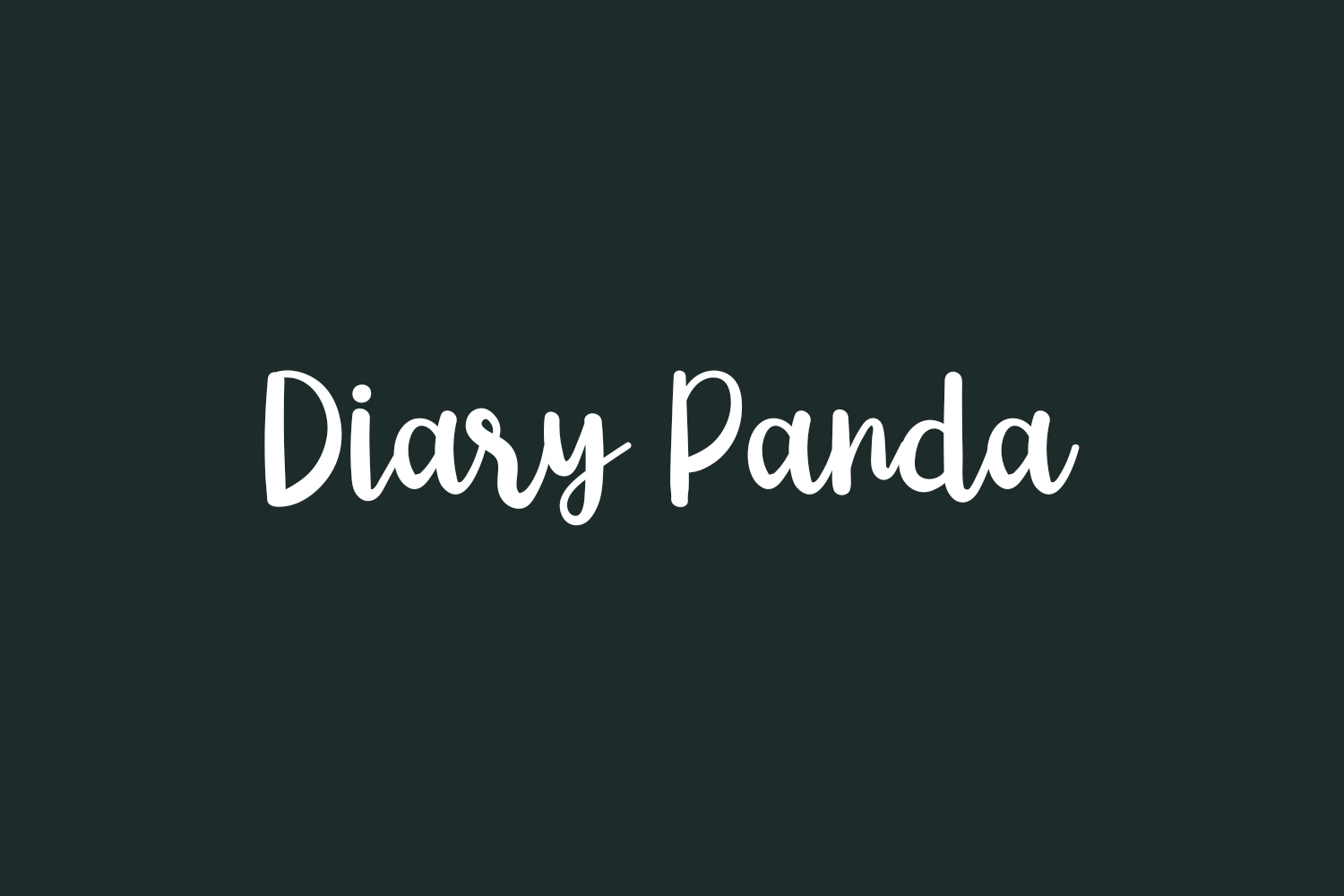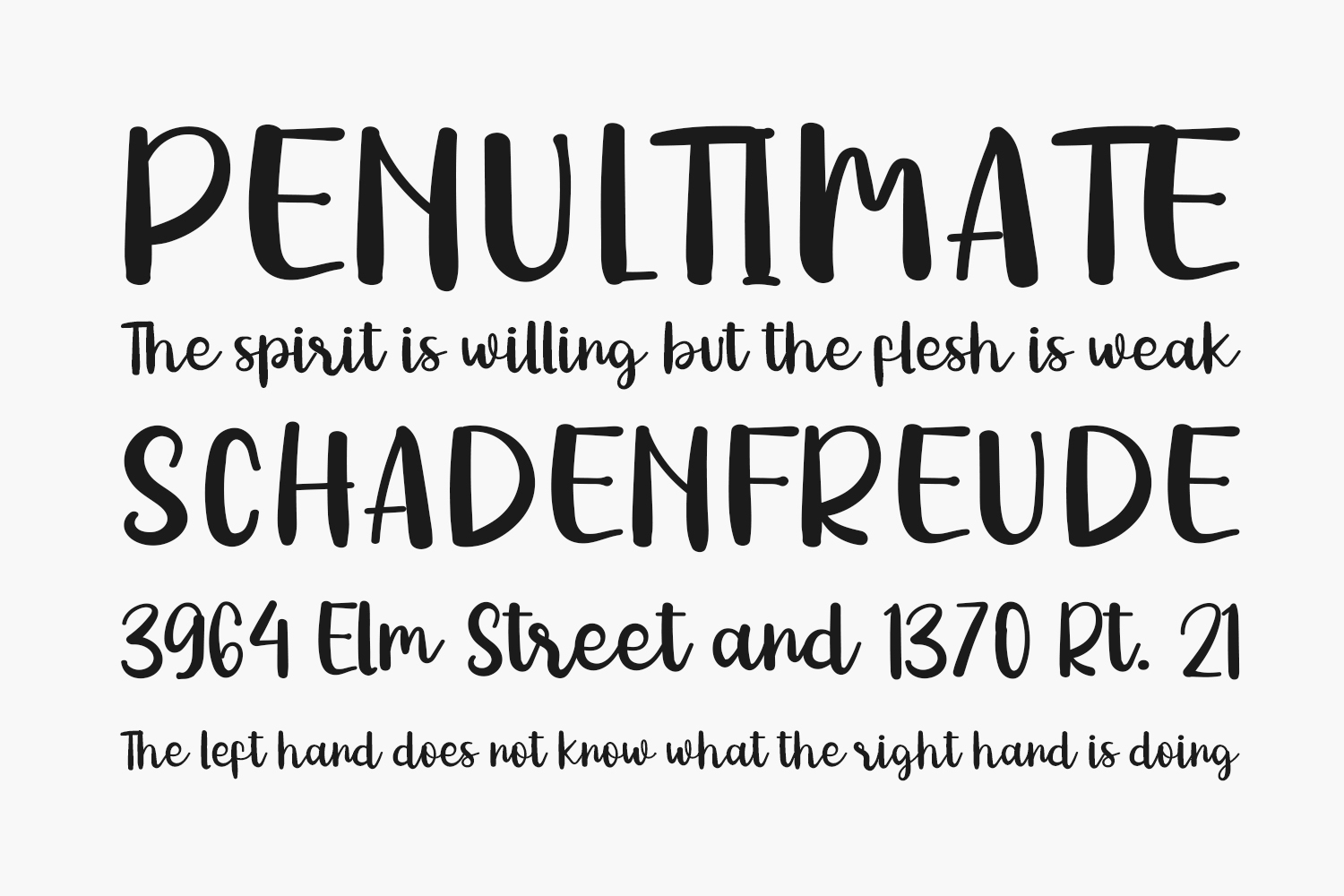
Diary Panda Free Font is a neat and playful handwritten font. Whether you’re looking for fonts for social media or calligraphy scripts for DIY projects, this font will turn any creative idea into a true piece of art. Diary Panda Free Font was designed by Inermedia Studio and is free for personal use only. Please purchase the full version for commercial use.